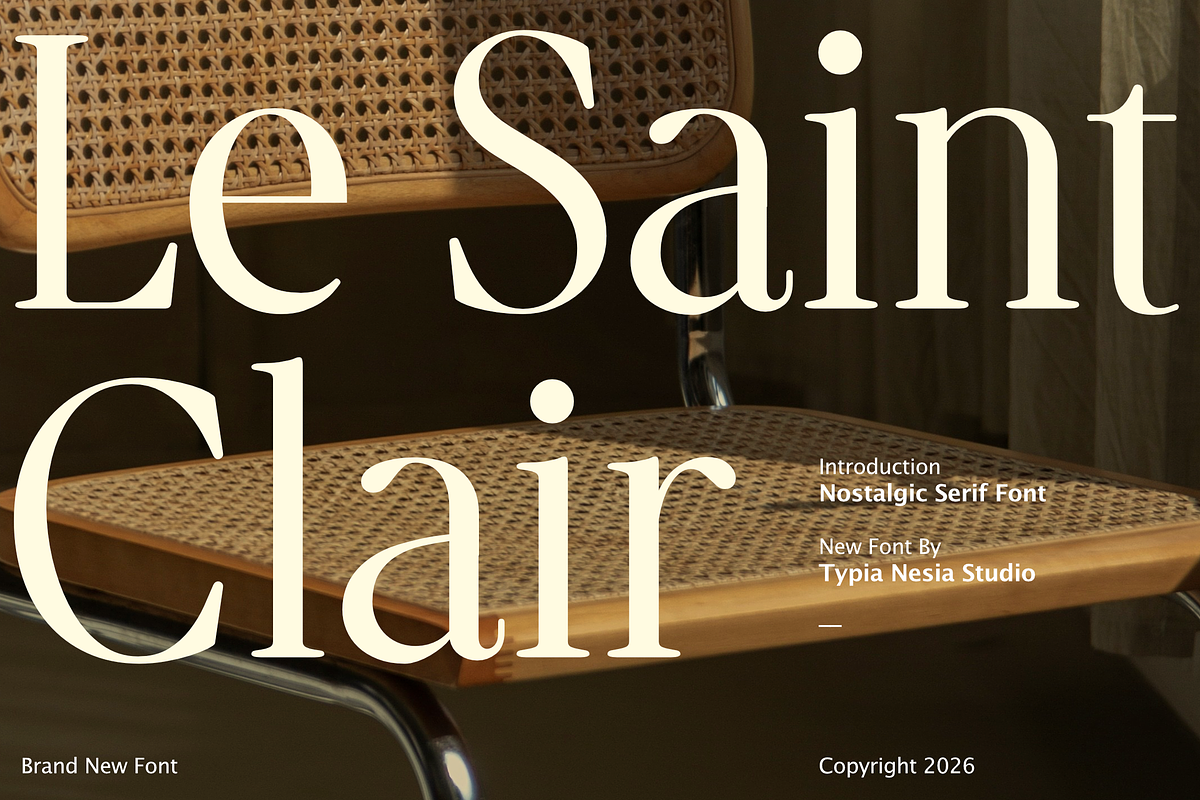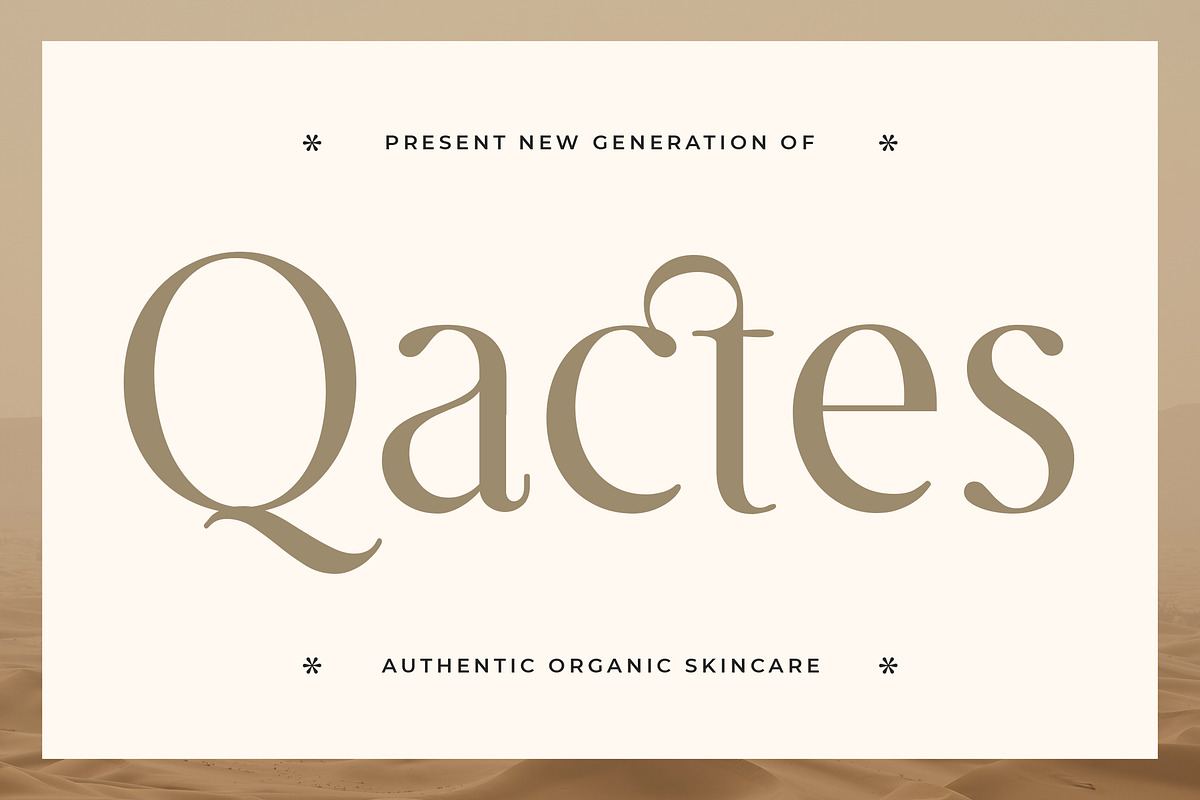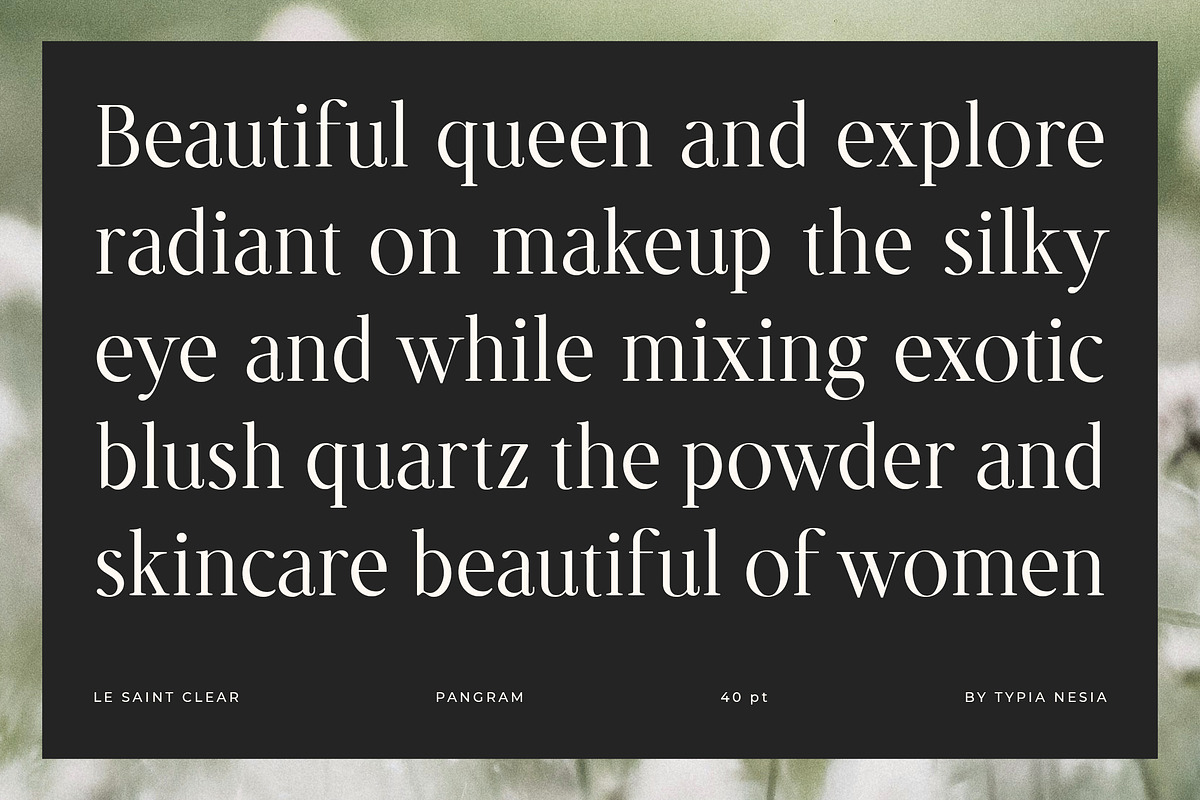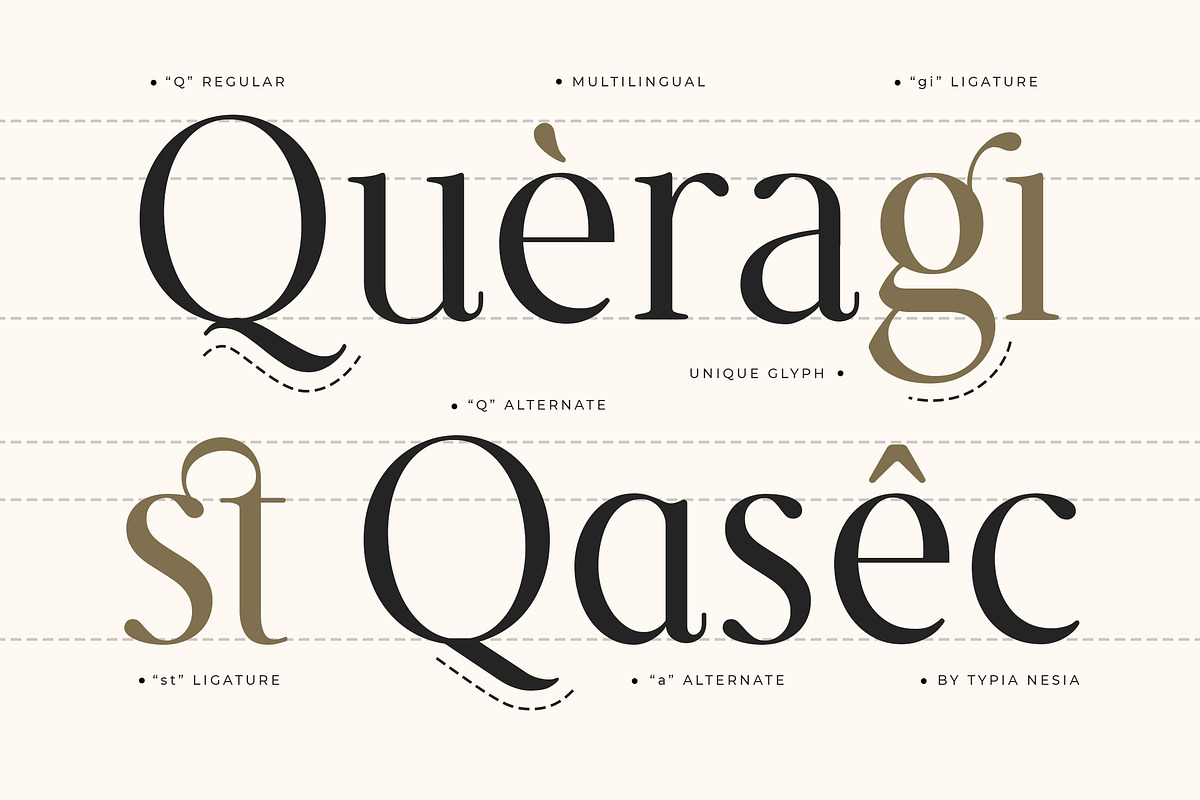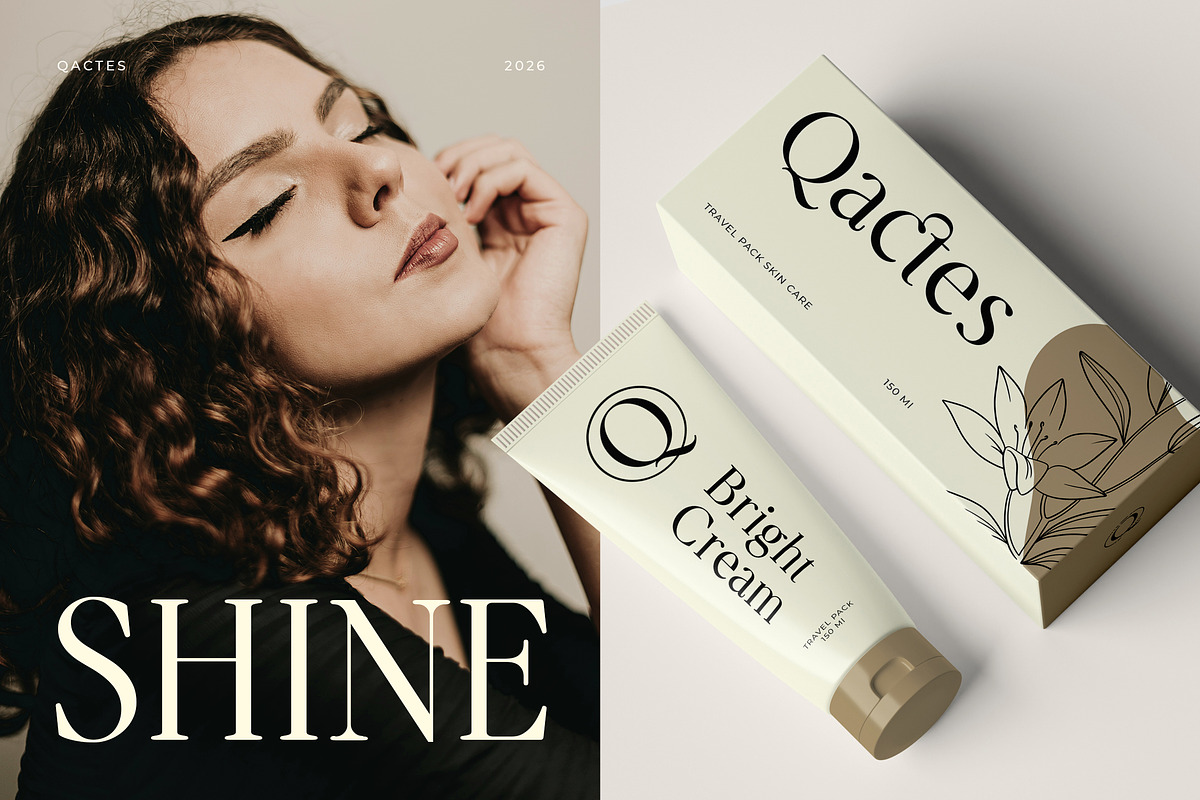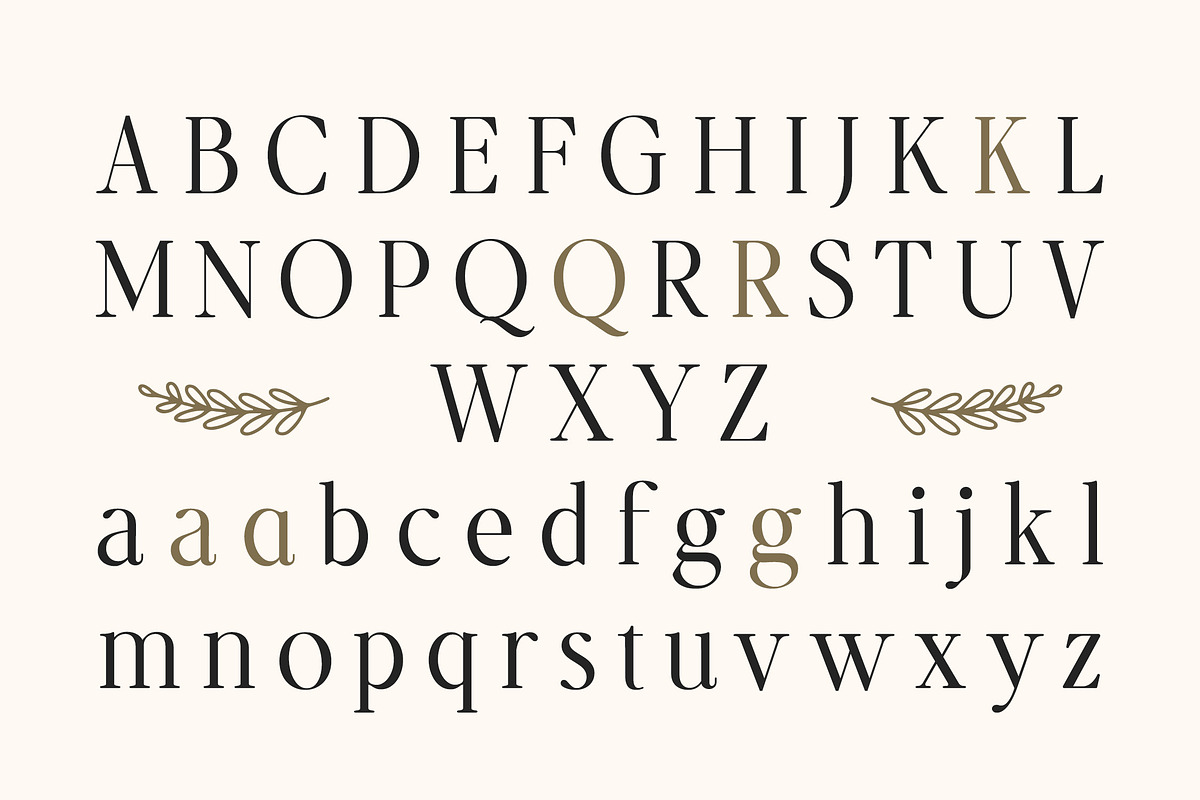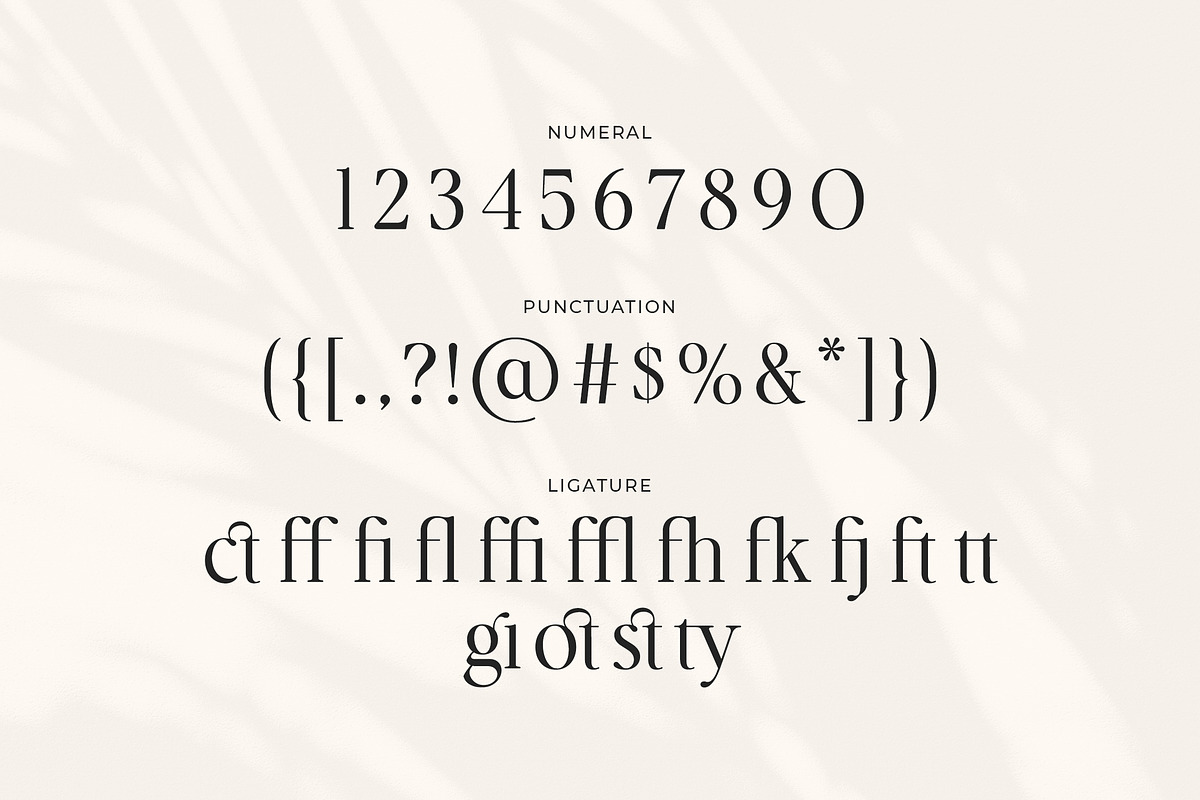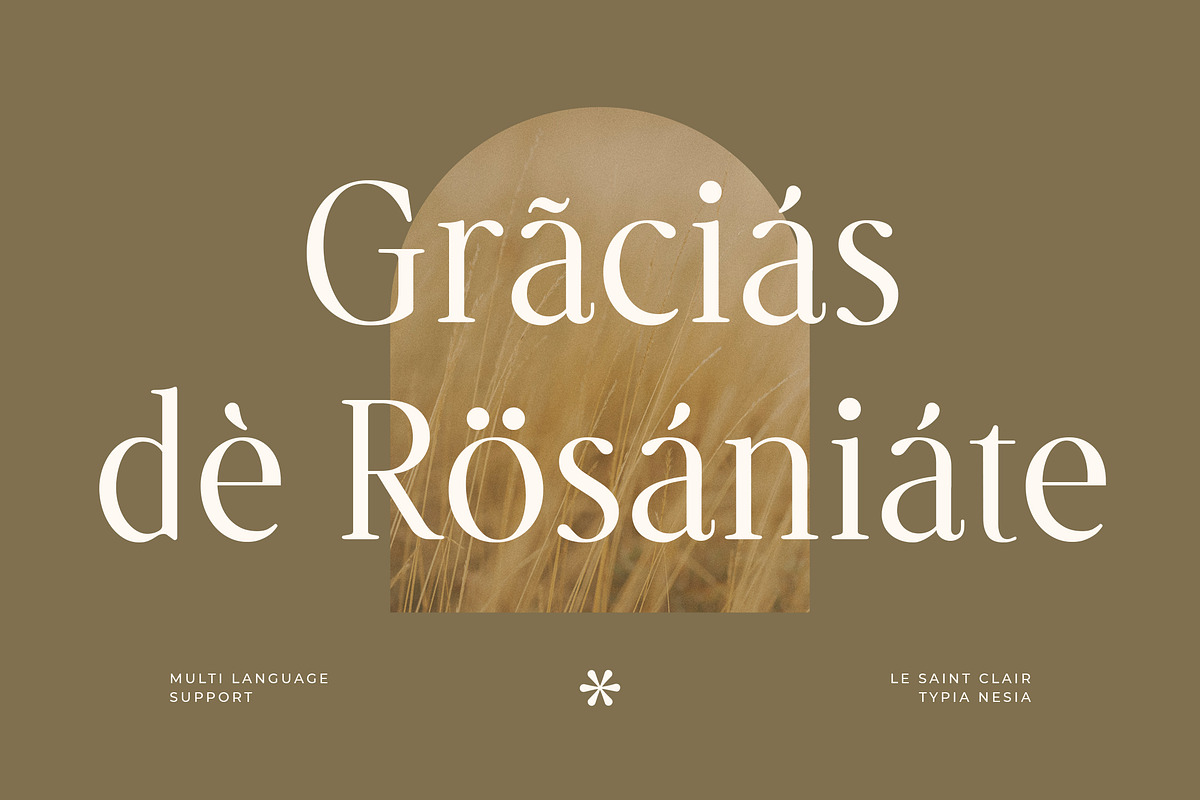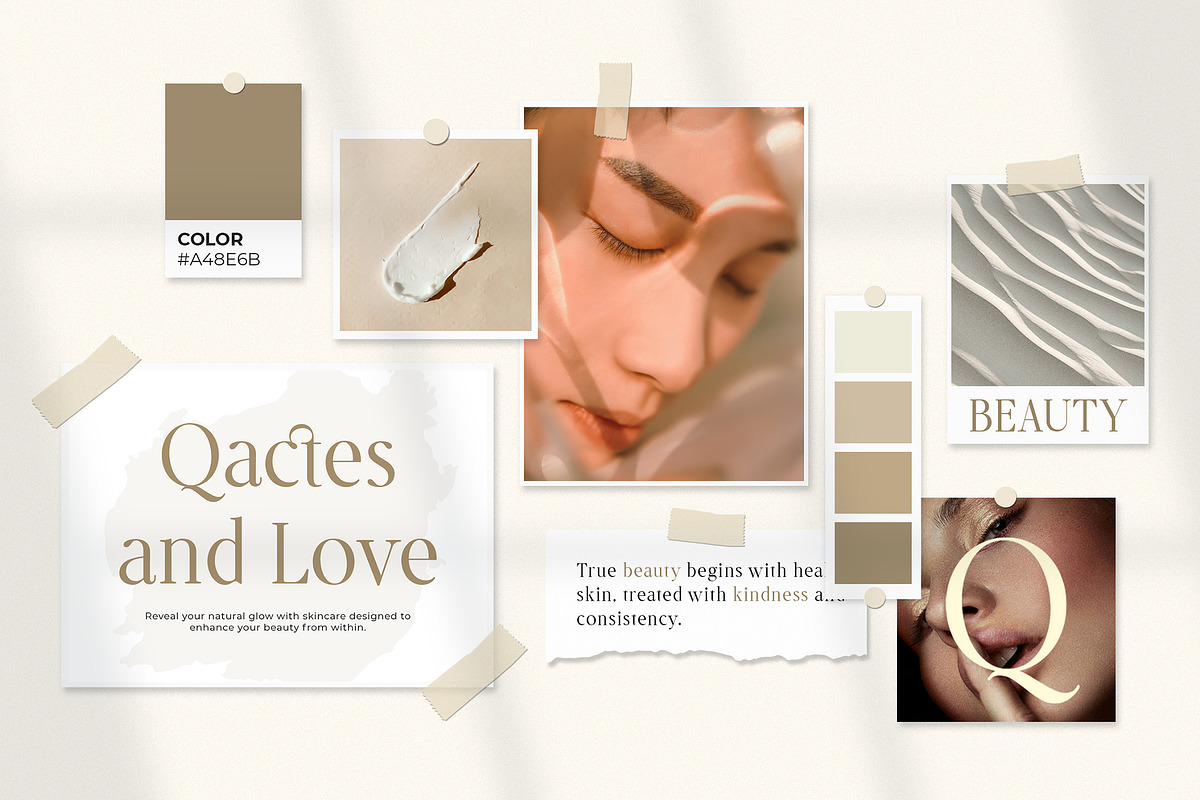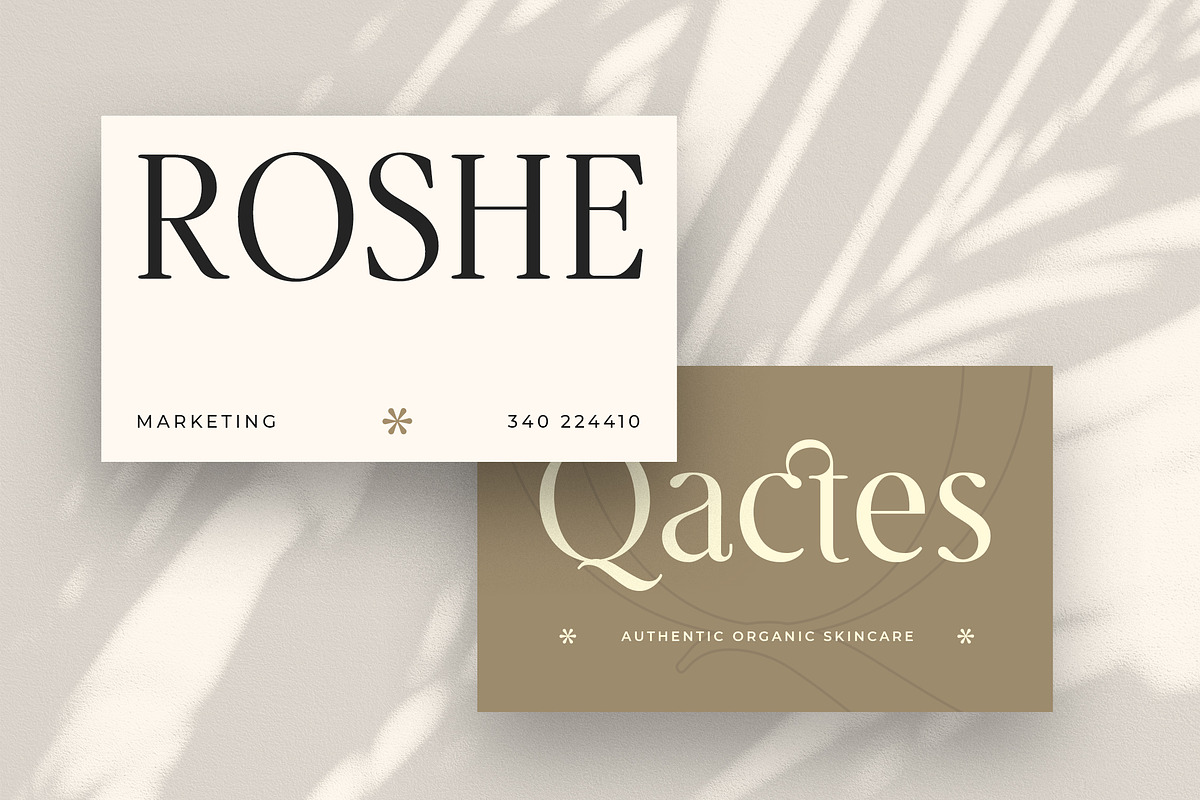
Le Saint Clair - Beauty Nostalgic
Le Saint Clair - Beauty Nostalgic Retro Serif Font - Modern Elegant Luxury Display Font
Le Saint Clair is a modern elegant retro serif font that blends timeless beauty with a nostalgic 90s aesthetic. Designed with refined serif details, graceful curves, and balanced proportions, this typeface delivers a luxurious, classy, and feminine character perfect for sophisticated visual identities. The elegant letterforms create a soft yet powerful presence that feels both modern and nostalgic, making it perfect for logo design, wedding invitations, cosmetic and skincare branding, fashion labels, packaging, posters, magazine layouts, and any project that wants to communicate elegance, beauty, and timeless sophistication.
Create timeless elegance in your designs with Le Saint Clair.